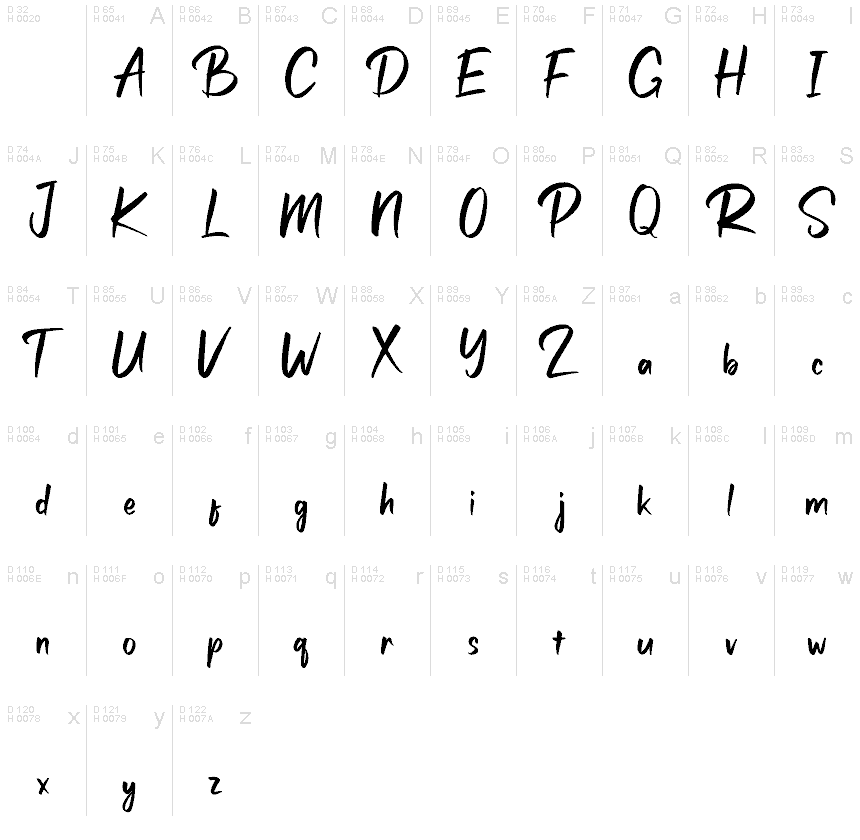
Busten Regular
Busten font by Craft Supply Co. is a handwritten typeface with expressive strokes and a casual aesthetic. It combines an artistic flair with a modern appeal, making it versatile yet captivating. Its natural and organic appearance creates a friendly atmosphere, perfect for designs that need a personal touch.